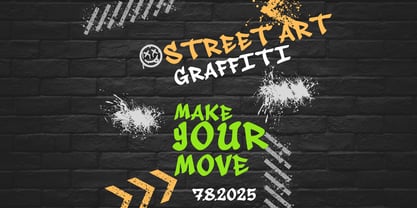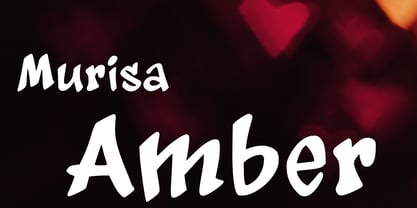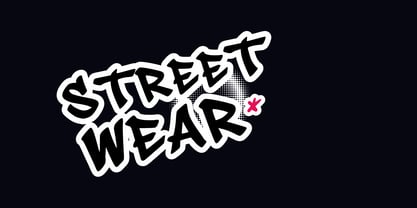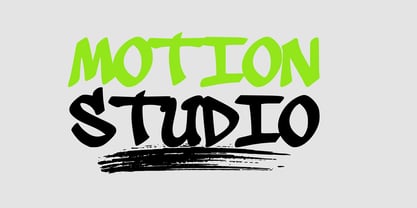
Murisa Amber
by Murisa Studio
The Murisa Amber Font Family was designed by Lili Sadili and published by Murisa Studio. Murisa Amber contains 1 styles. More about this family
Murisa Amber — Where Bold Expression Meets Global Elegance
Step into a world where handwriting becomes high art. Murisa Amber is a display font that radiates confidence, charisma, and unmistakable originality. With its bold strokes, playful curves, and handcrafted energy, this typeface doesn’t whisper—it shouts with style.
🖋️ Designed for Impact Murisa Amber is not just a font—it’s a statement. Perfect for branding, packaging, editorial headlines, and digital campaigns that demand attention. Every letter is sculpted to balance spontaneity with precision, making your message unforgettable.
🌍 Multilingual Mastery Crafted with care to support Eastern European languages, Murisa Amber ensures your voice resonates across borders. Whether you're designing for Prague, Warsaw, or Budapest, this font speaks fluently.
🎨 Artistry in Every Curve From A to Z and 0 to 9, each character is infused with personality. The rhythm of the strokes evokes graffiti flair with a refined twist—ideal for creators who crave edge without sacrificing elegance.
💎 For Visionaries Only Murisa Amber is a collector’s font—made for those who value rarity, originality, and timeless design. It’s not for everyone. It’s for you—the tastemaker, the trendsetter, the one who leads, not follows.
Designers: Lili Sadili
Foundry: Murisa Studio